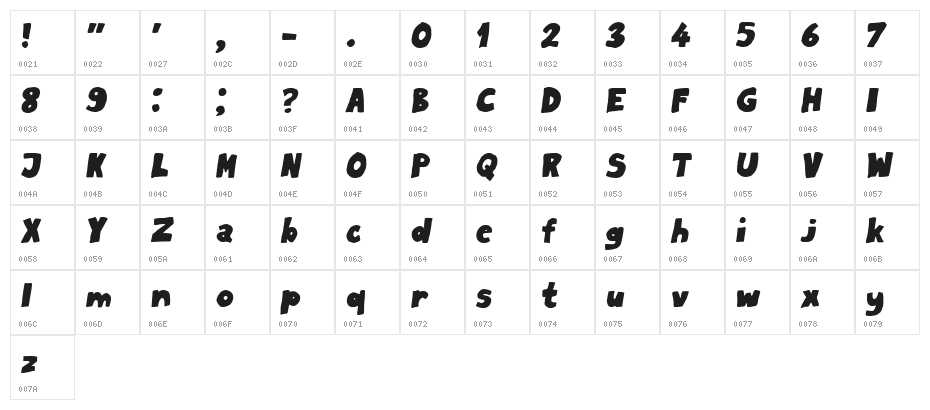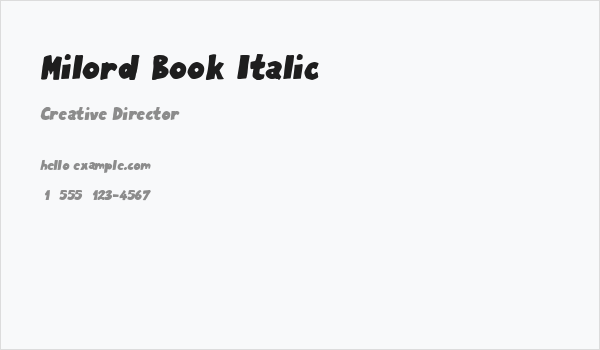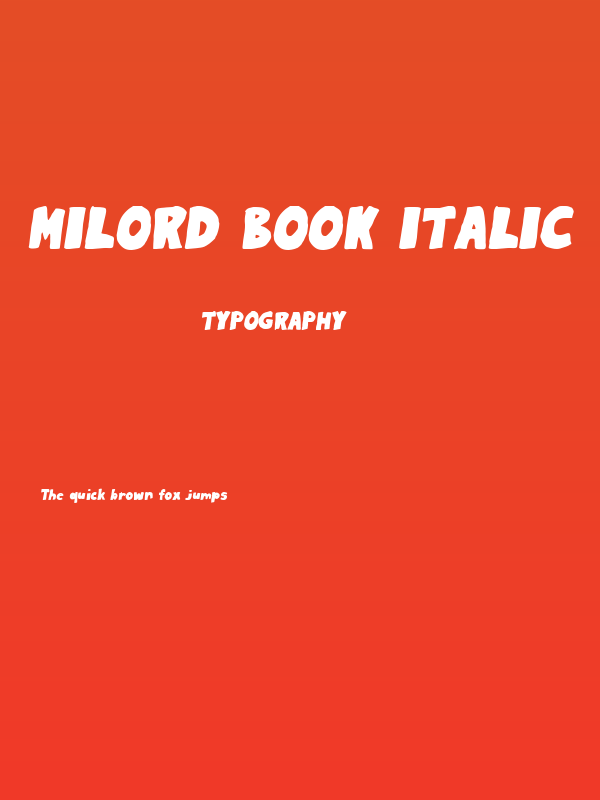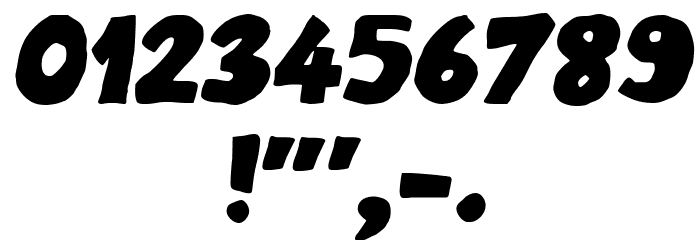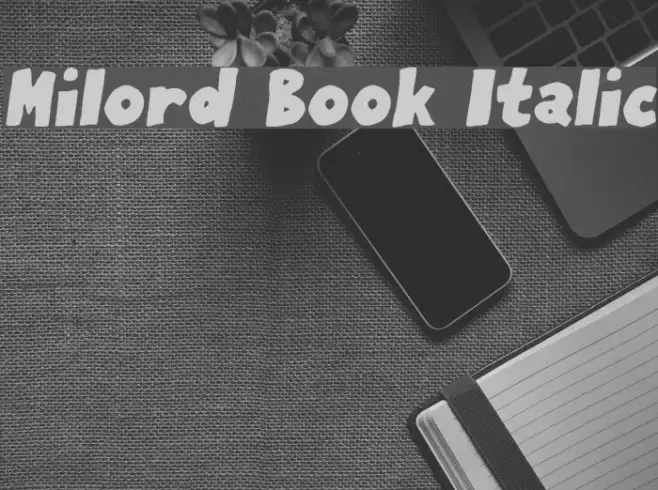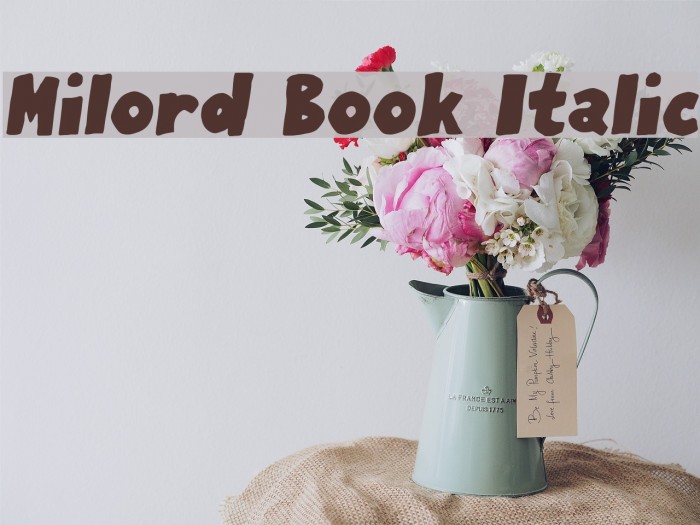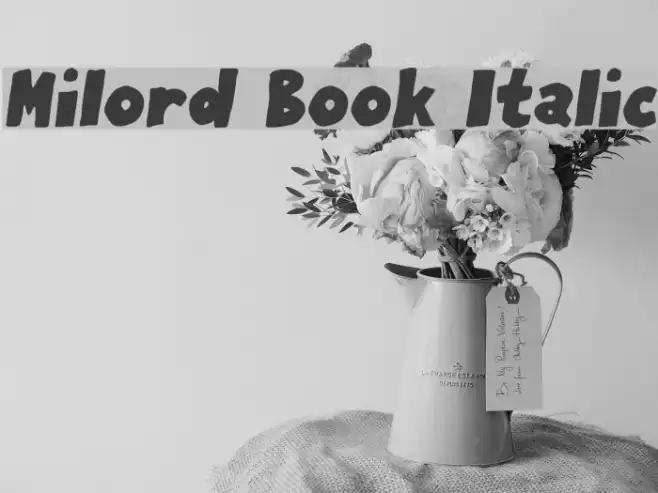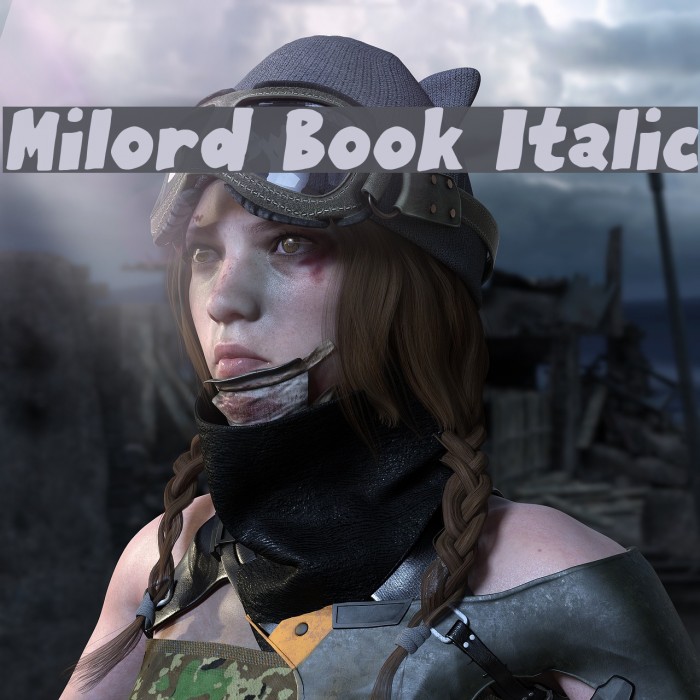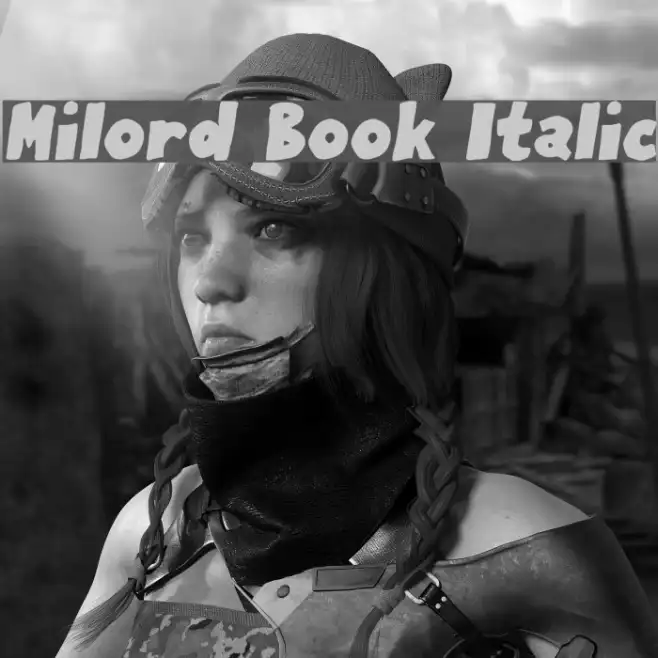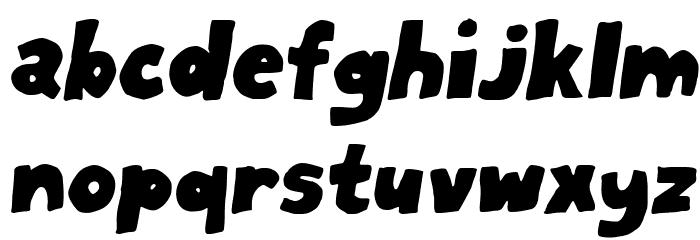
Milord Book Italic Font
Milord Book Italic Description
This font features a bold and playful style with a slightly italicized slant, giving it a dynamic and energetic appearance. The characters are thick and rounded, providing a friendly and approachable feel. The uppercase and lowercase letters maintain a consistent weight, while the numbers and special characters complement the overall design. The font's boldness makes it stand out, yet its rounded edges soften the impact, making it suitable for various creative applications. The spacing between characters is relatively tight, enhancing the compact and cohesive look of the text.
| Overall Style | Playful |
| Proposed Projects | Ideal for children's books, playful branding, posters, and informal invitations. |